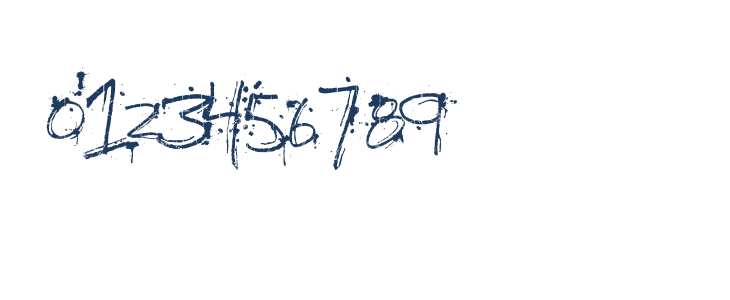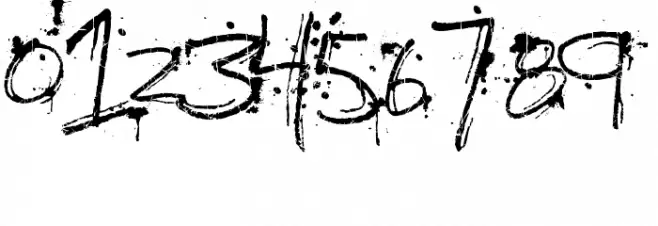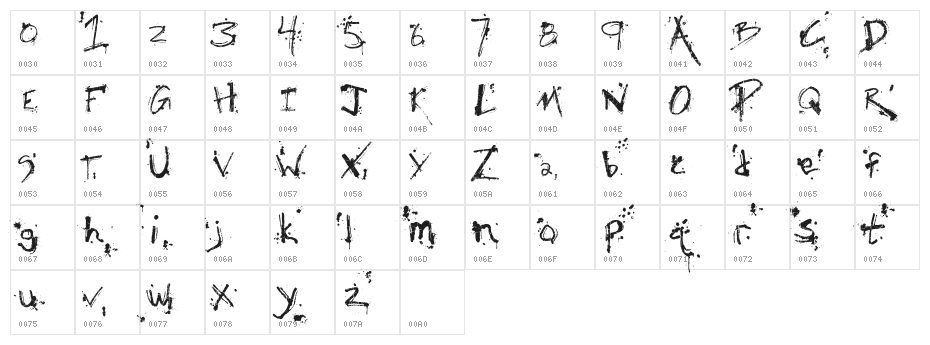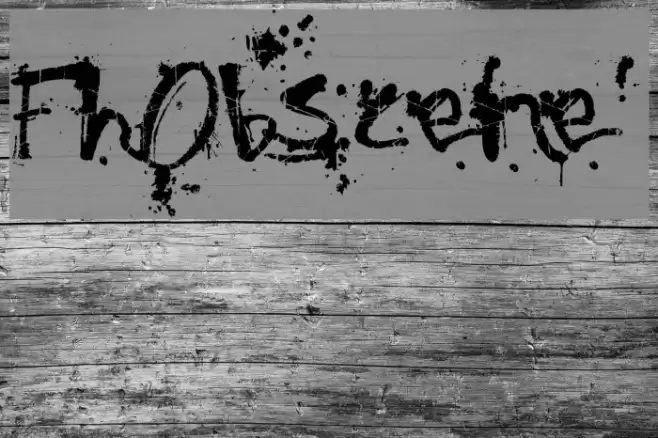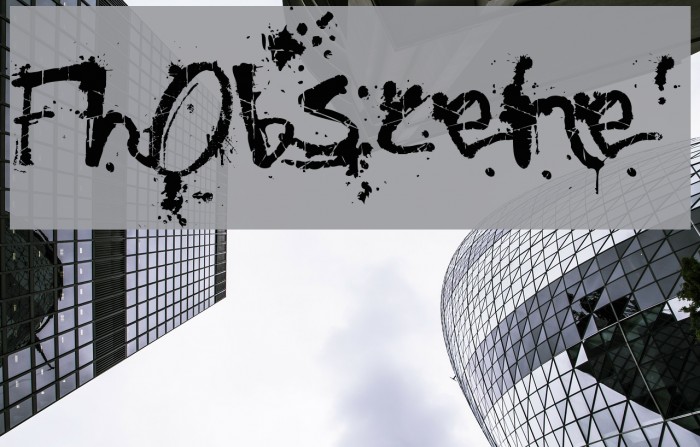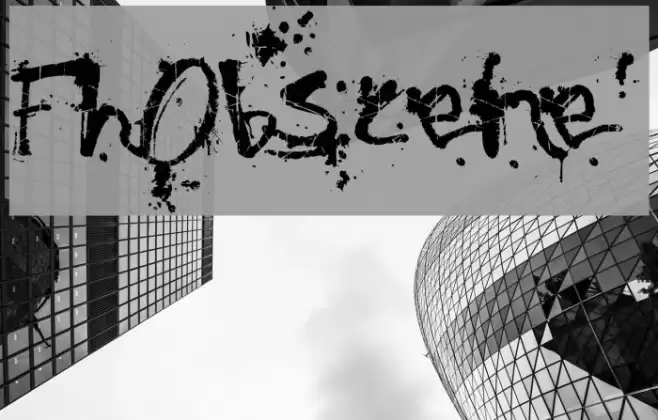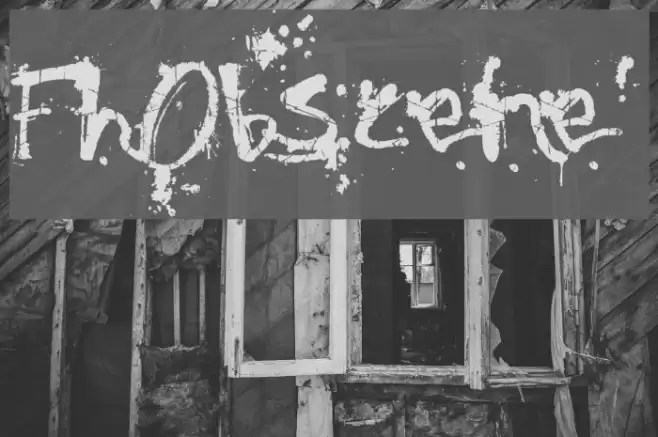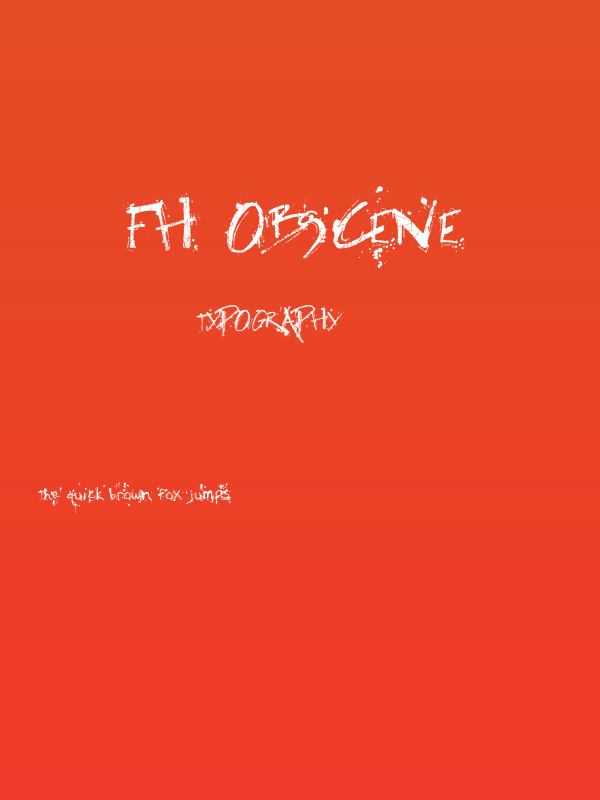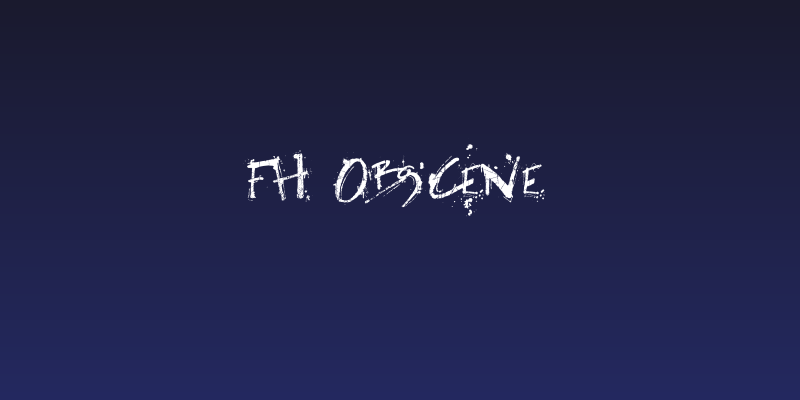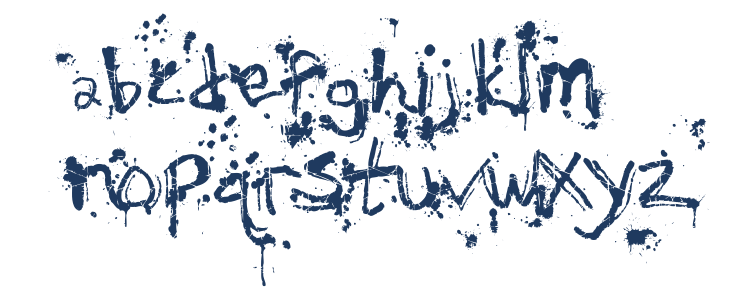
Fh_Obscene Font
Fh_Obscene Description
This font exhibits a raw, grunge aesthetic with a splattered, ink-blot appearance. The characters are irregular and chaotic, with varying stroke thicknesses that give it a distressed, hand-drawn look. The uppercase and lowercase letters maintain a consistent style, with jagged edges and uneven baselines. Numbers and special characters follow the same rugged design, enhancing the overall edgy feel. The font's unique style makes it stand out, ideal for projects that require a bold, rebellious statement.
FH_OBSCENE UPPERCASE
FH_OBSCENE LOWERCASE
FH_OBSCENE OTHER CHARS
| Overall Style | Grunge, Edgy, Artistic |
| Proposed Projects | Album covers, streetwear branding, graffiti art, edgy posters, and rebellious-themed designs. |